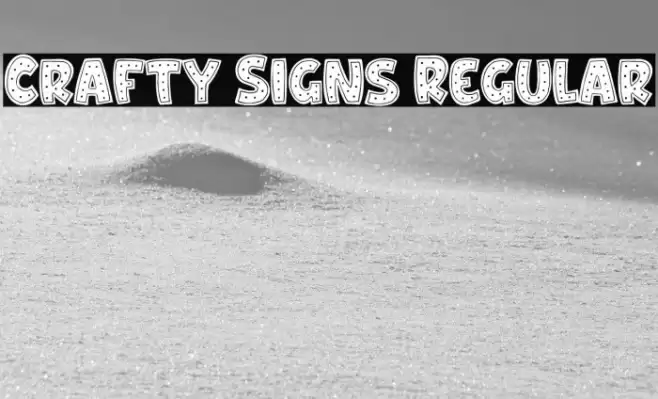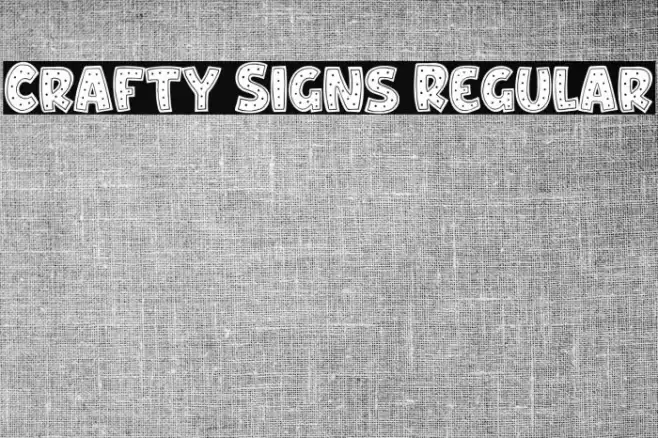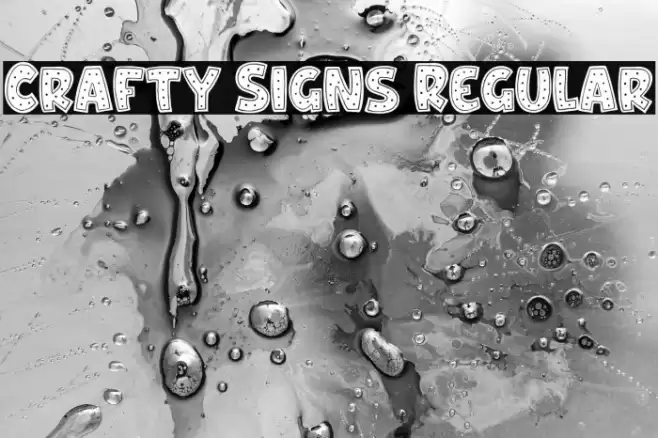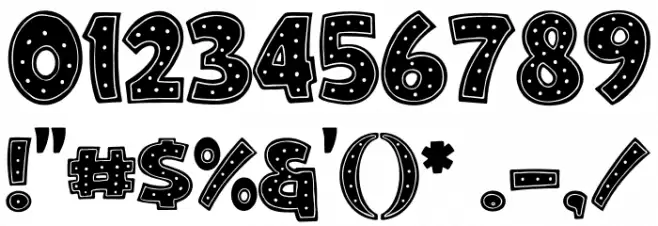
Crafty Signs Regular Font
Crafty Signs Regular Description
This playful and decorative font features bold, rounded characters with a whimsical touch. Each letter is adorned with small circular cutouts, adding a unique and crafty appearance. The font maintains a consistent thickness throughout, giving it a strong and cohesive look. Its bold and eye-catching design makes it suitable for creative projects that require a fun and engaging typeface. The characters are well-spaced, ensuring readability while maintaining a lively and dynamic feel.
A bold, playful font with decorative cutouts and rounded characters from Decorative fonts.
- Proposed Projects: Ideal for children's books, playful branding, party invitations, and craft projects.
- Overall Style: Playful, Decorative